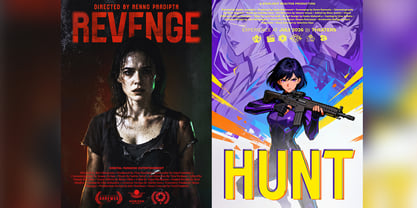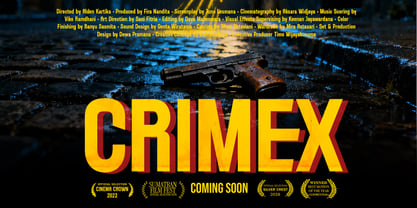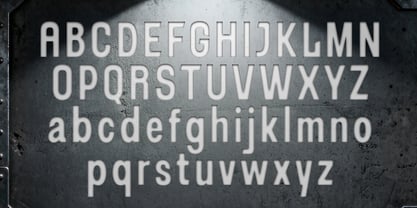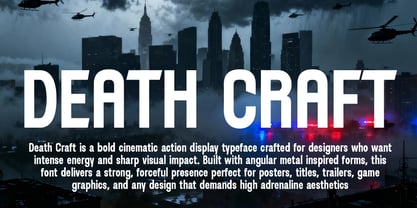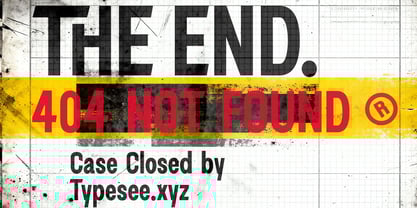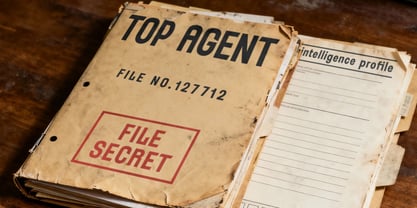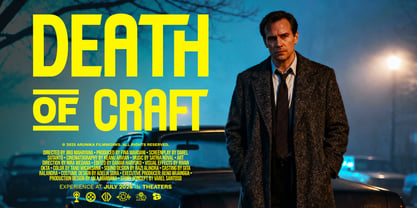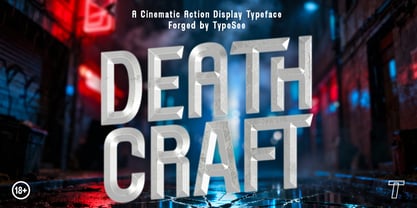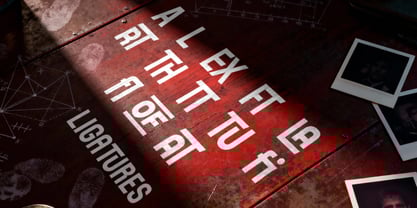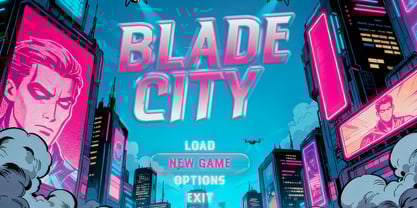
Death Craft
Death Craft is a cinematic action display typeface designed for creators who want to inject raw tension and heavy atmosphere into their visuals. Crafted with angular cuts, metallic depth, and a rugged industrial feel, this typeface delivers a striking look that instantly elevates titles and branding for film, gaming, and high-energy promotional media. Each character is engineered with a sense of weight and drama, making the font ideal for dystopian settings, thriller trailers, cyber-action sequences, and any project that demands bold typography that stands out. Death Craft includes uppercase and lowercase characters, offering versatile combinations for impactful headline designs, logotypes, posters, and dramatic title cards. Whether you’re building a cinematic universe or crafting the next breakout game promo, Death Craft brings the intensity your project deserves.